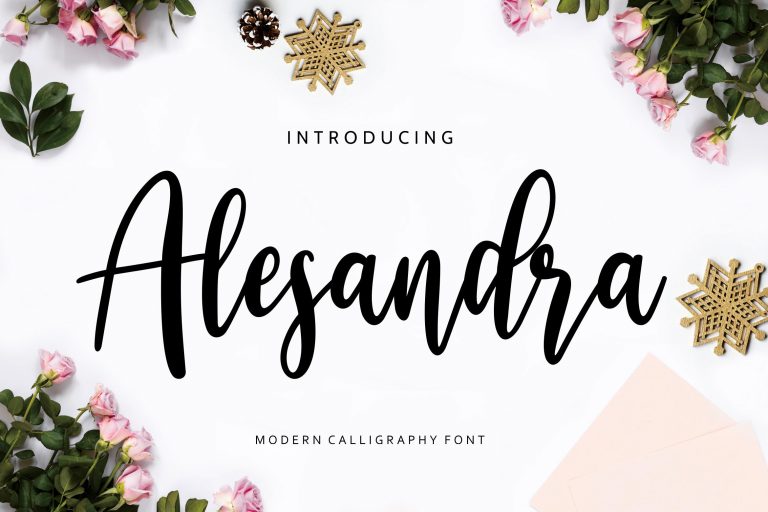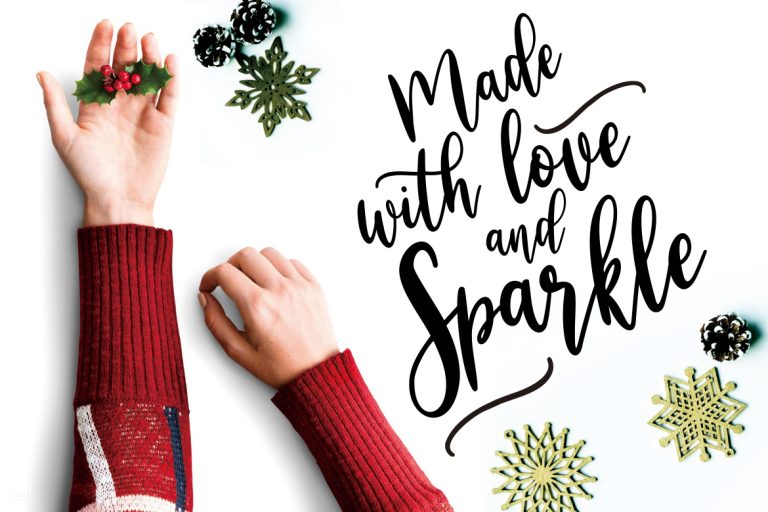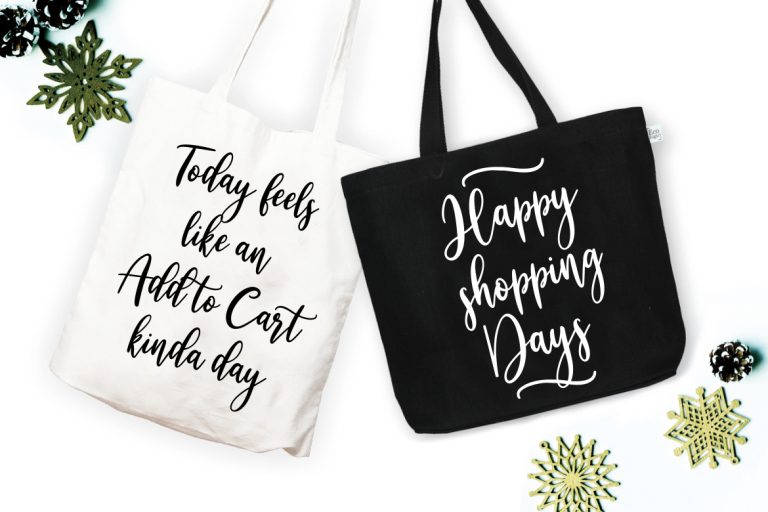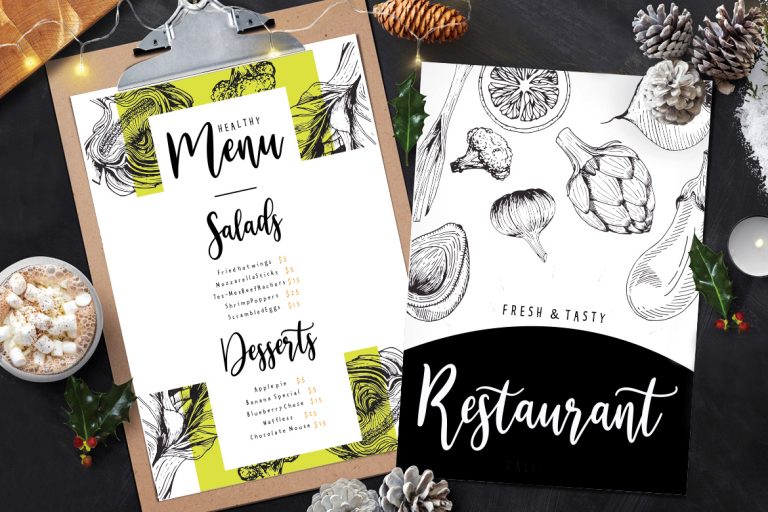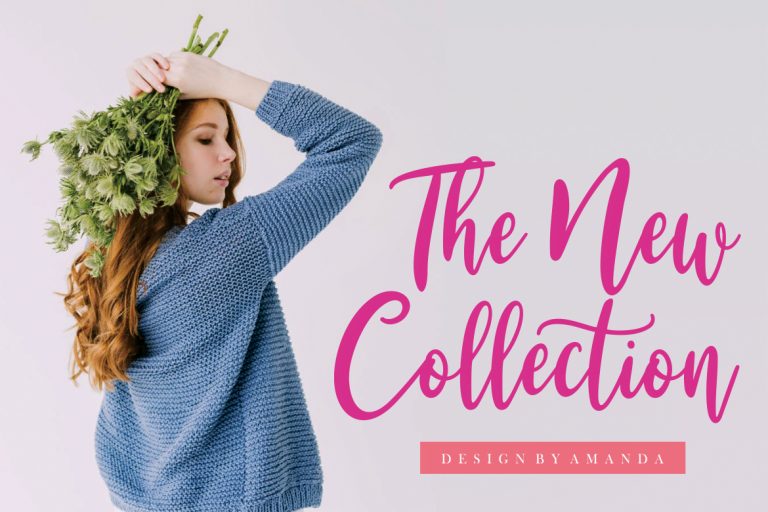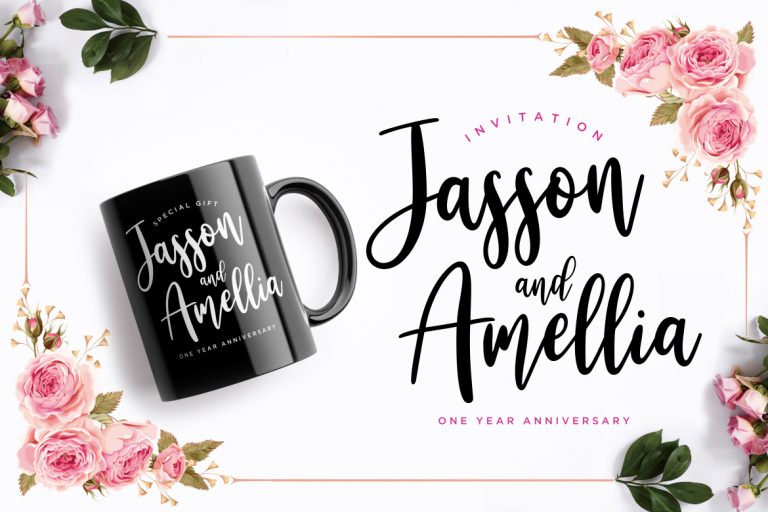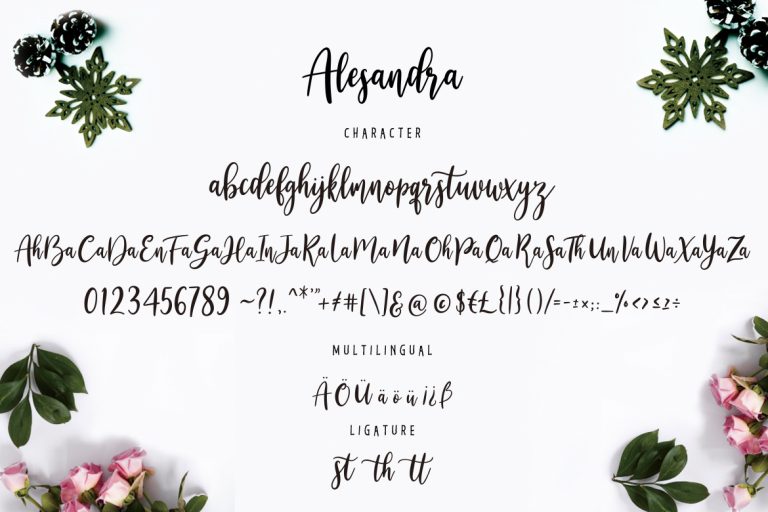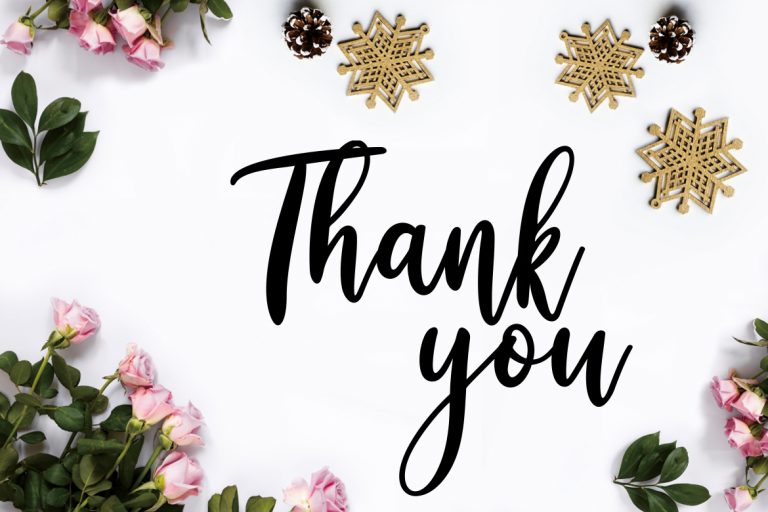
Alesandra Modern Calligraphy
Alesandra Modern Calligraphy is a elegant and a smooth casual monoline signature stylish script.
Alesandra Modern Calligraphy is perfect for branding projects, logo, wedding designs, social media posts, advertisements, product packaging, product designs, label, photography, watermark, invitation, stationery and any projects that need handwriting taste.
- Fonts include multilingual support for; ä ö ü Ä Ö Ü ß ¿ ¡